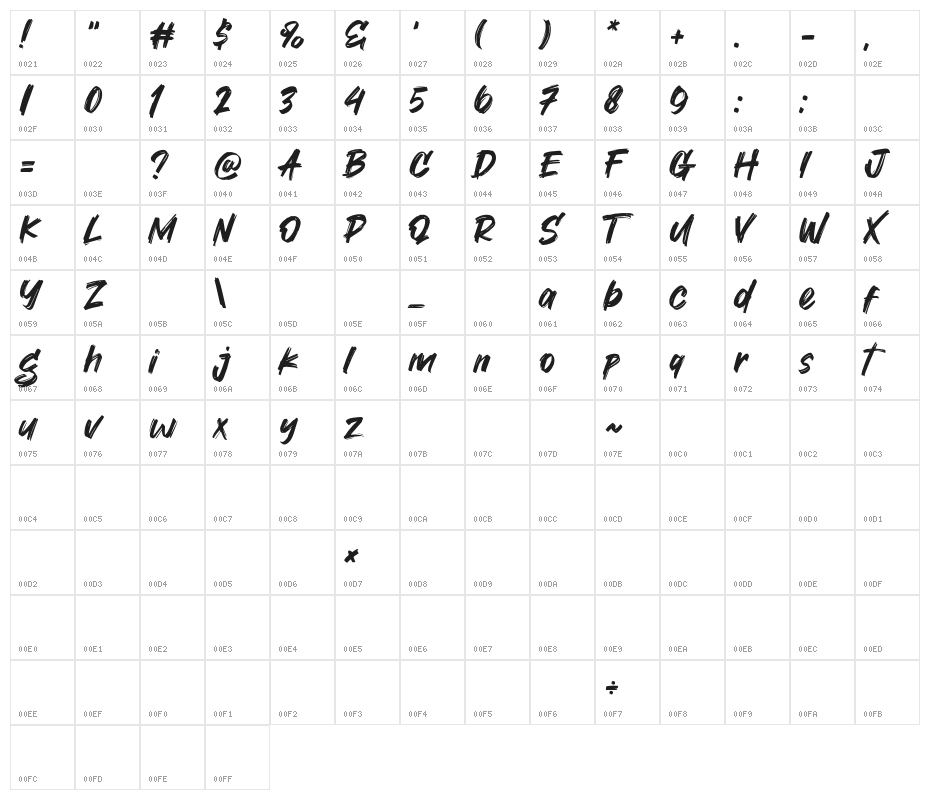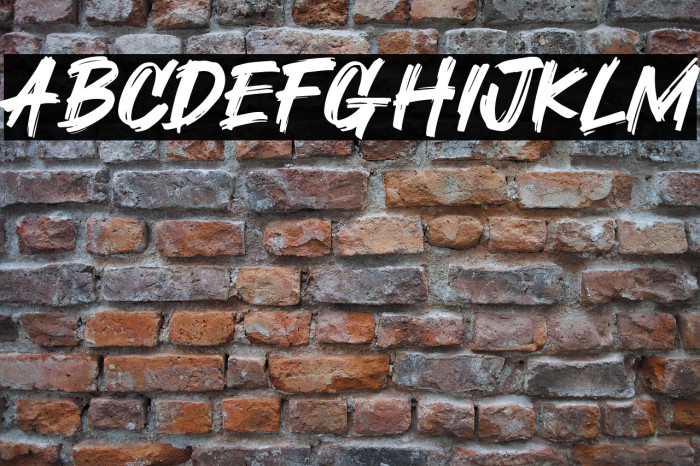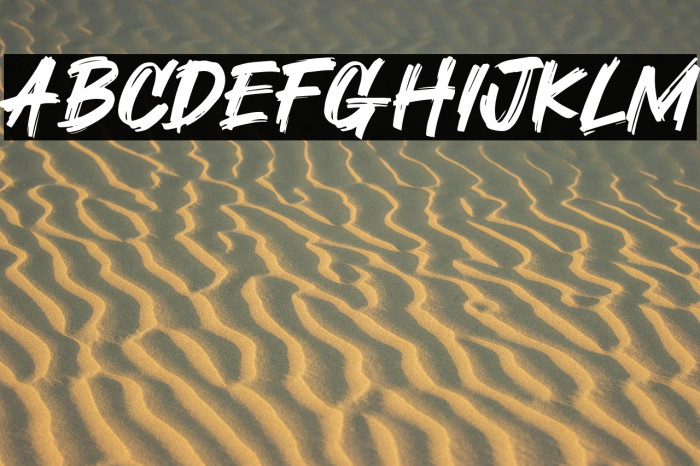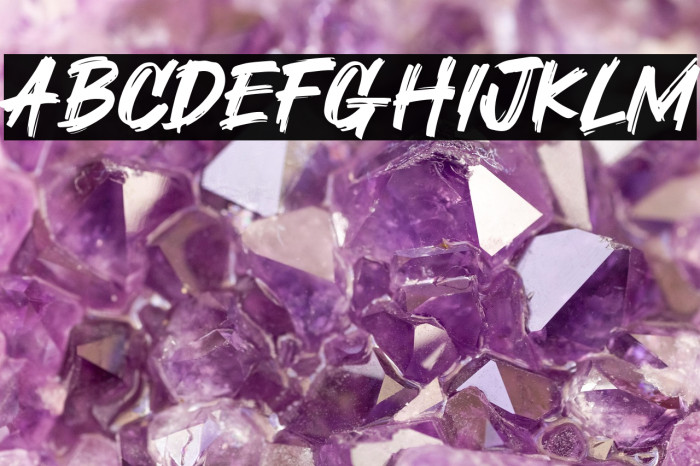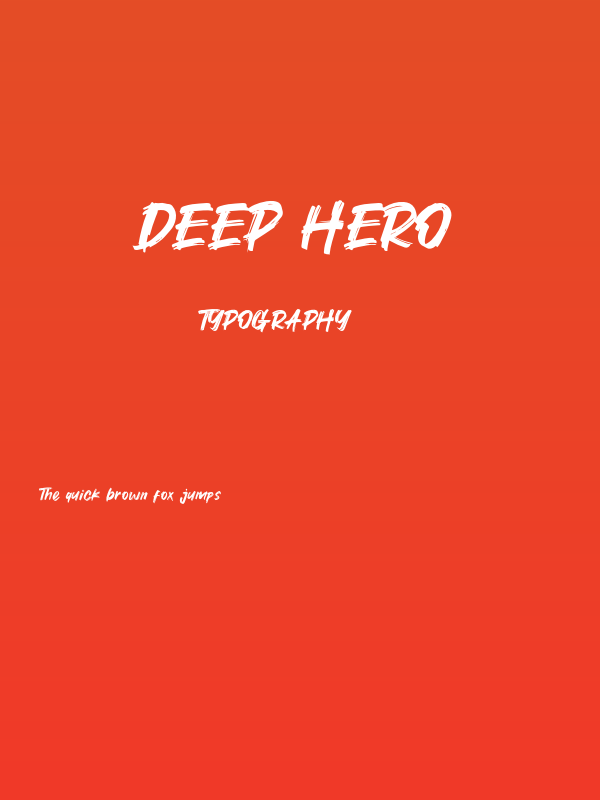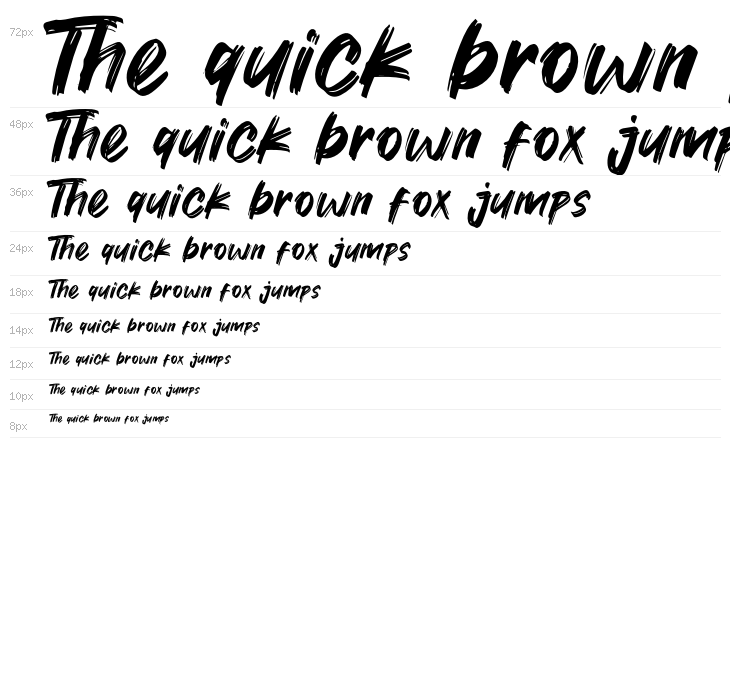
Deep Hero Font
Deep Hero Description
This font features a bold, energetic brush script style with a dynamic and expressive appearance. The strokes are thick and uneven, giving it a hand-painted look that conveys a sense of movement and spontaneity. The characters are slightly slanted, enhancing the casual and informal feel. The uppercase and lowercase letters are well-balanced, with a consistent flow that maintains readability despite the artistic flair. The numbers and special characters follow the same energetic style, making it suitable for creative and eye-catching designs.
| Use Case | Logos, Headlines, Posters |
| Proposed Projects | Ideal for branding, posters, social media graphics, and any project requiring a bold, artistic touch. |